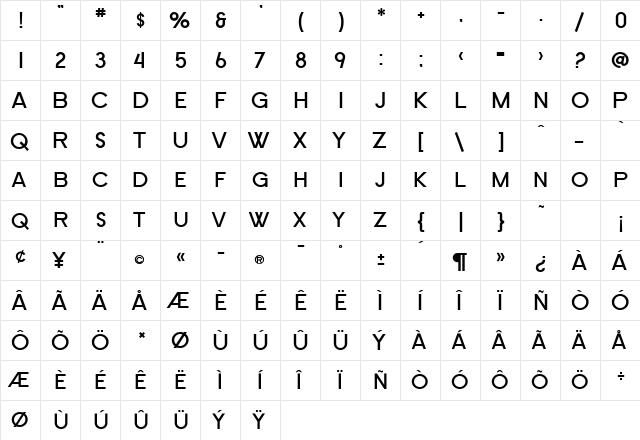
SF Old Republic SC Bold
Design Context for SF Old Republic SC Typeface
SF Old Republic SC offers clean, dependable letterforms without strong stylistic allegiance, making it a practical choice for designers who need flexibility. The heavy weight commands attention and anchors typographic hierarchies.